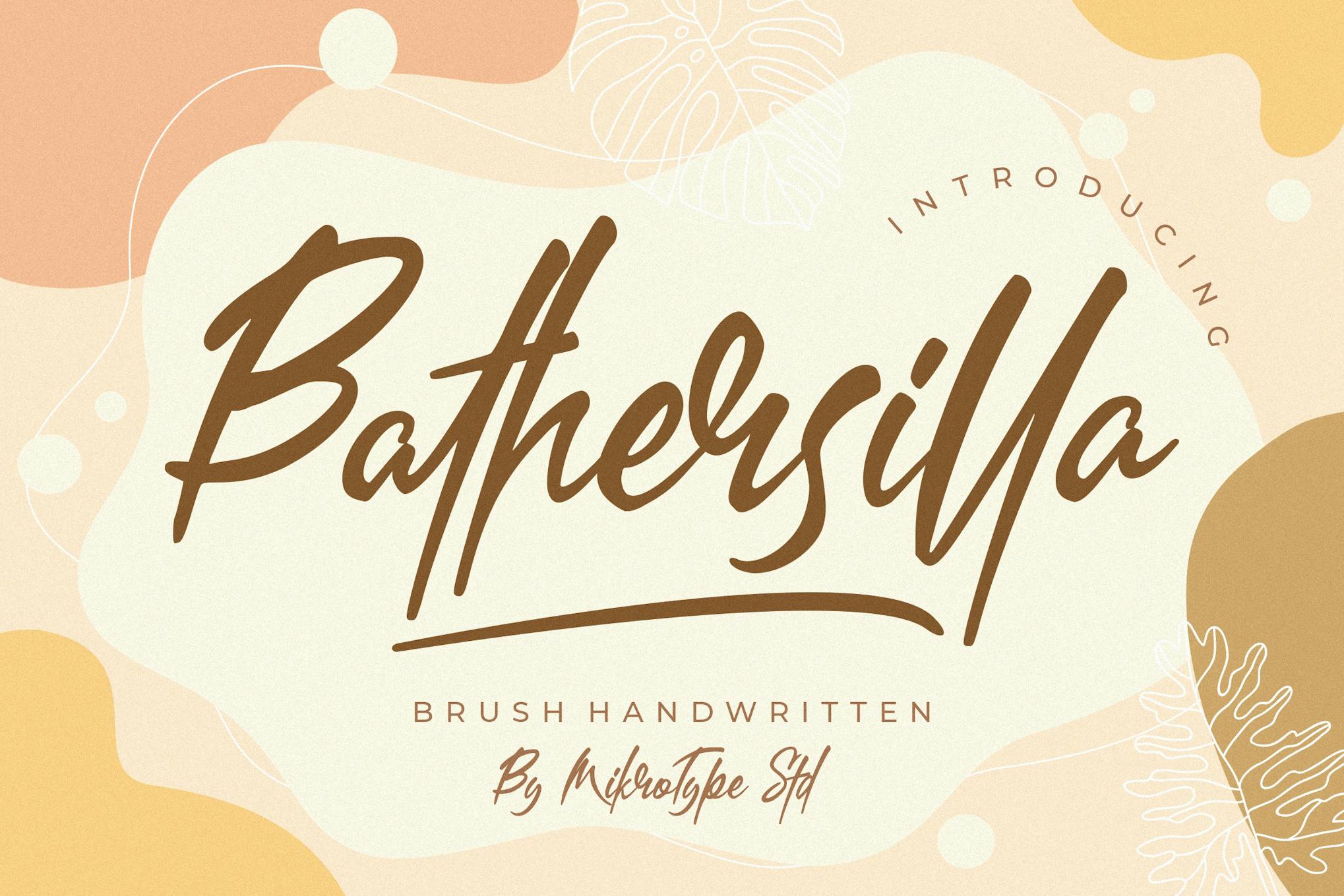
Bathersilla Brush Wedding Font
The Bathersilla Brush Wedding Font excels in artistic design applications including creative wedding invitations, artistic bridal branding, expressive ceremony logos, handcrafted product packaging, artistic business cards, creative portfolios, expressive greeting cards, artistic social media graphics, handcrafted event signage, and creative marketing materials. Its artistic brush style makes it perfect for projects requiring expressive elegance that communicates creativity and establishes artistic brand positioning with audiences seeking creative wedding experiences and handcrafted sophistication.
What makes the Bathersilla Brush Wedding Font genuinely exciting is its exceptional ability to capture the artistic beauty and expressive elegance of creative weddings through masterfully crafted brush strokes. The font features flowing, brush-inspired letterforms with artistic flourishes and handcrafted proportions that create a distinctly creative appearance. Each character displays remarkable attention to artistic detail with expressive curves, creative connections, and handcrafted spacing that give text a beautifully artistic, hand-painted quality. The font's creative character and artistic rhythm create an atmosphere of expressive elegance while maintaining handcrafted sophistication and wedding authenticity.
The Bathersilla Brush Wedding Font family typically includes regular weight with extensive character coverage, featuring uppercase and lowercase letters, numerals, punctuation marks, and international characters. The typeface often incorporates stylistic alternates, contextual ligatures, and artistic swashes that enhance its signature creativity. These additional elements provide designers with creative flexibility to customize text appearance and achieve more natural-looking expressive handwriting that reflects the font's artistic and handcrafted character.
This creative signature font distinguishes itself through its remarkable balance of artistic charm and sophisticated elegance. Unlike rigid or mechanical fonts that lack expressive appeal, Bathersilla Brush Wedding Font embraces the power of artistic design to create handcrafted connections with creative wedding audiences. The font's artistic character makes it essential for creative wedding planners, artistic brands, and expressive celebration businesses where creating handcrafted wedding experiences and artistic memories is fundamental to success in creative wedding markets.
Introducing Bathersilla Brush Handwritten - A brush stylish handwriting typeface. This font will looks awesome and amazing in many way to your latest project. The font is perfect for for movie title, logo, blogging, brand identity, book title, social media, branding, wedding invites, cards or simply use it in your next design project and suitable to use for many occasion. Included : Format font in OTF, TTF, WOFF Standard Characters Numerals Punctuation Ligature Swashes Web Fonts Simple installations Accessible in the Adobe Illustrator, Adobe Photoshop, Adobe InDesign PUA Encoded Characters - Fully accessible without additional design software. Multilingual Characters support for;Afrikaans, Albanian, Czech, Danish, Dutch, English, Estonian, Finnish, French, Hungarian, Italian, Latvian, Lithuanian, Norwegian, Polish, Portugese, Slovak, Slovenian, Spanisch, Swedish, Turkish.